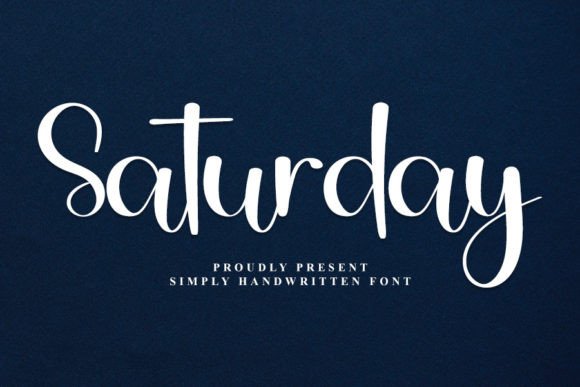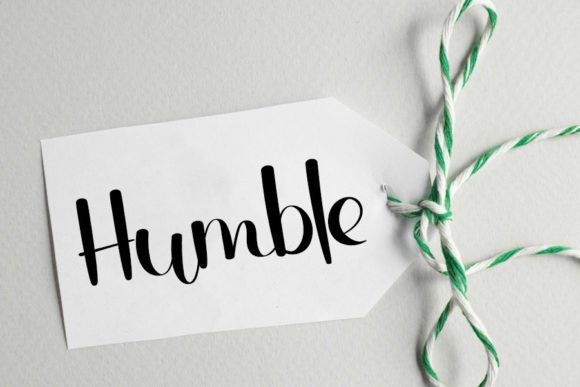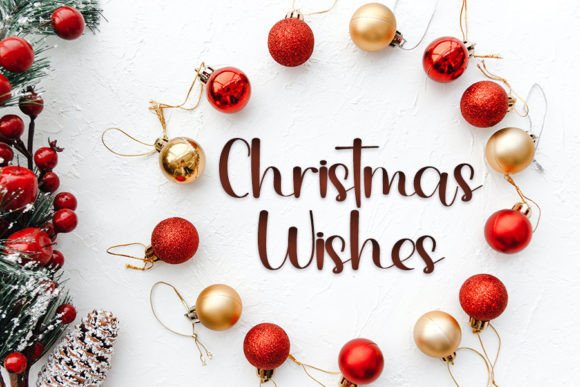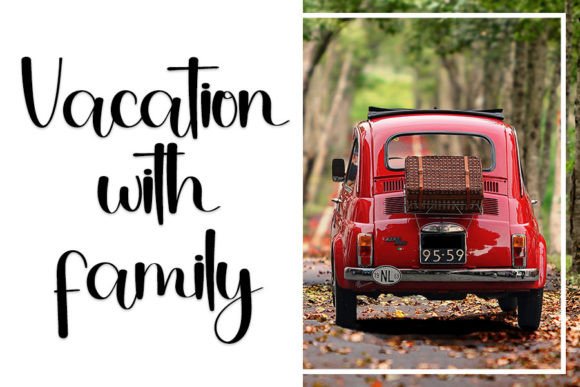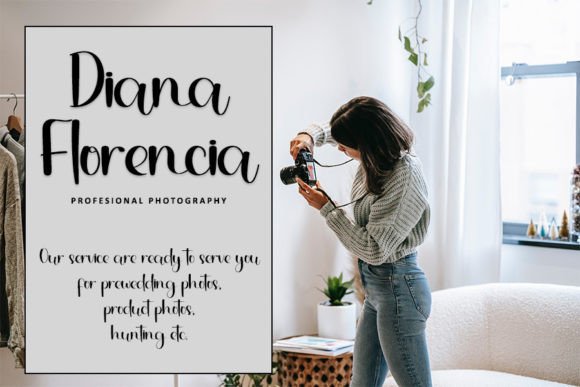
Saturday Font
What Is Saturday Font?
Saturday Font is a neat and elegant handwritten script created to bring timeless beauty to your designs. Each letter has smooth curves and clean lines, giving your text a graceful look that feels modern yet classic. Because of its refined style, this font is perfect when you want your work to feel sophisticated and warm.
You will see how easily Saturday adapts to different creative themes and projects.
Saturday is a versatile font you can use in many situations. For example, it’s an ideal choice for wedding invitations or save-the-date cards. The flowing script adds an instant touch of romance and style.
In addition, it works beautifully for logos and branding materials. If you want your business to feel polished and approachable, Saturday helps you create a memorable look.
You can also use it on product packaging, labels, and handmade goods. Even a simple design feels premium and unique with this font.
When you design social media graphics or blog headers, Saturday brings a classy and professional feel. Even the most minimal layouts become more engaging.
It’s also great for greeting cards, book covers, and event signage. Your designs will look cohesive, stylish, and carefully crafted.
Why Should You Choose Saturday Font?
There are many reasons to pick Saturday for your next project. First, it is easy to read at all sizes. Even in small text, each letter stays clear and smooth.
Also, Saturday pairs nicely with both serif and sans-serif fonts. This makes it simple to build balanced layouts that feel fresh and modern.
Designers love that it looks polished right away, which saves time and helps you deliver professional results.
Saturday Font adds elegance and warmth to any project. For example, when you want your work to feel refined and inviting, this font makes it effortless.
Even simple layouts look more thoughtful and beautiful with Saturday’s smooth strokes. Whether you’re designing invitations, branding, or social media content, your work will stand out.
Using a high-quality handwritten script also shows your care for detail and design. This builds trust with your audience and makes your creations more memorable.
Saturday Font is more than just a typeface—it’s a design tool that helps you share ideas with style and clarity. From weddings and logos to packaging and social media, this font adapts easily and leaves a lasting impression.